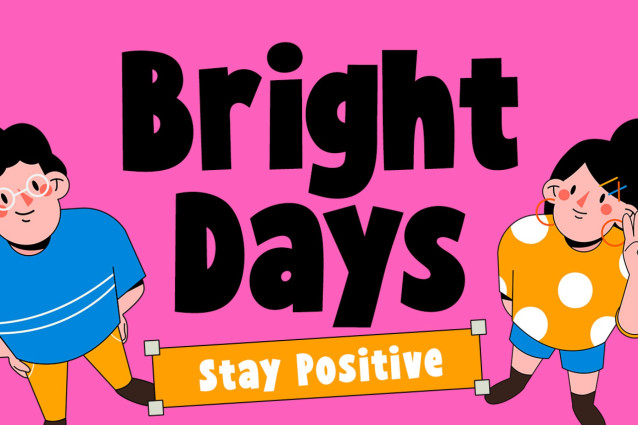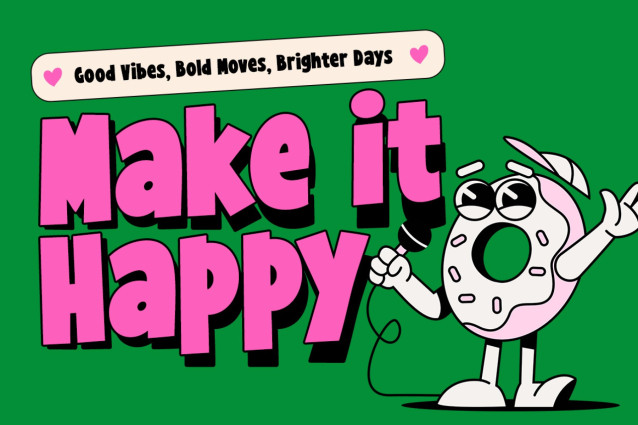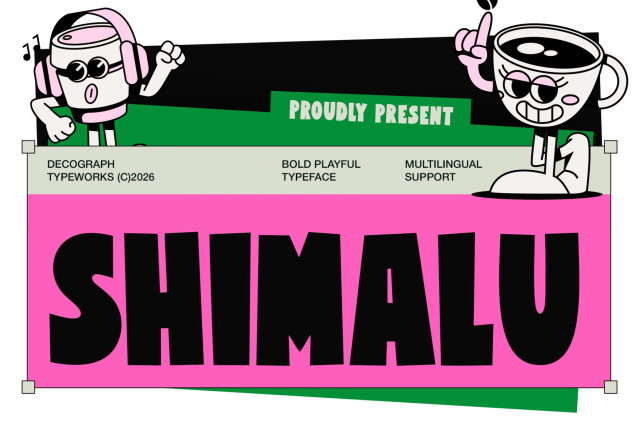
SHIMALU is a bold playful display typeface built around chunky letterforms, heavy low-contrast strokes, and slightly irregular proportions. Its broad silhouettes, compact counters, subtle angular details, and softly rounded construction create a lively graphic presence with a fun retro character. The strong all-caps structure keeps headlines highly visible while giving each letter a distinctive personality.
Designed for branding, posters, packaging, food and beverage graphics, merchandise, editorial headlines, and advertising, SHIMALU delivers an energetic visual tone that feels friendly, quirky, nostalgic, and confidently expressive.